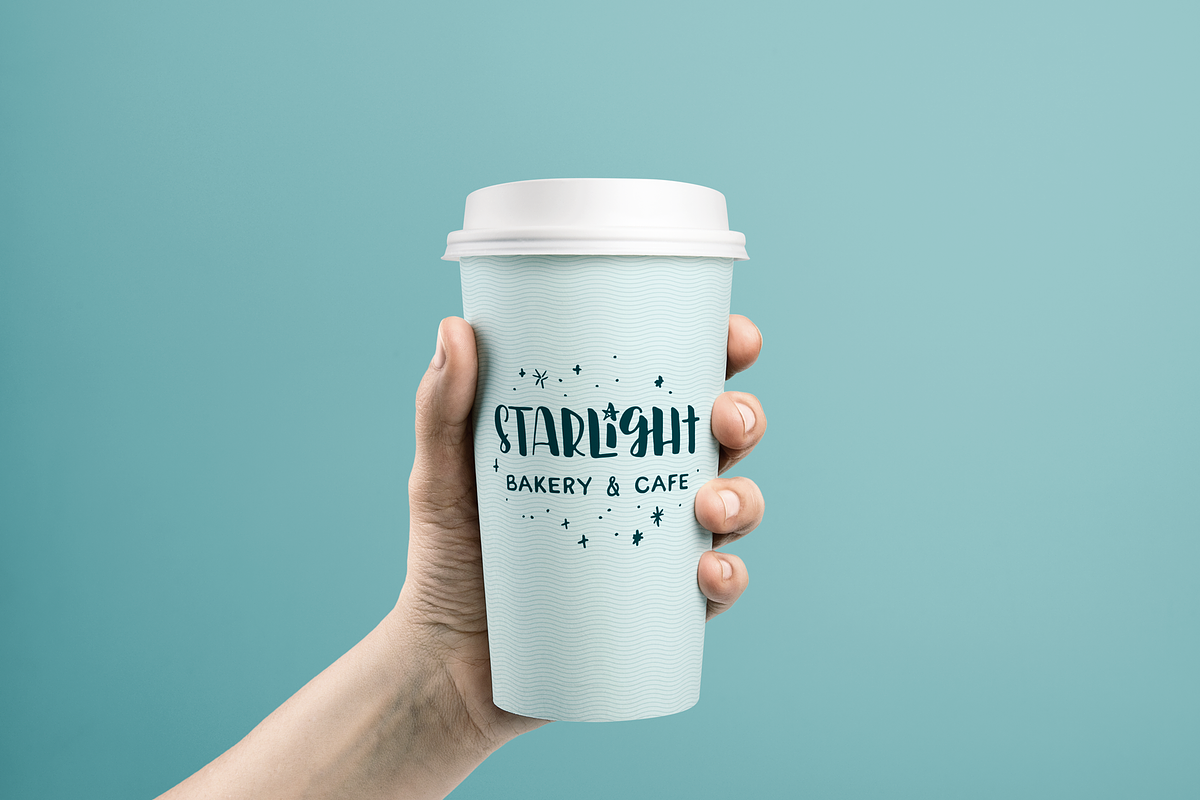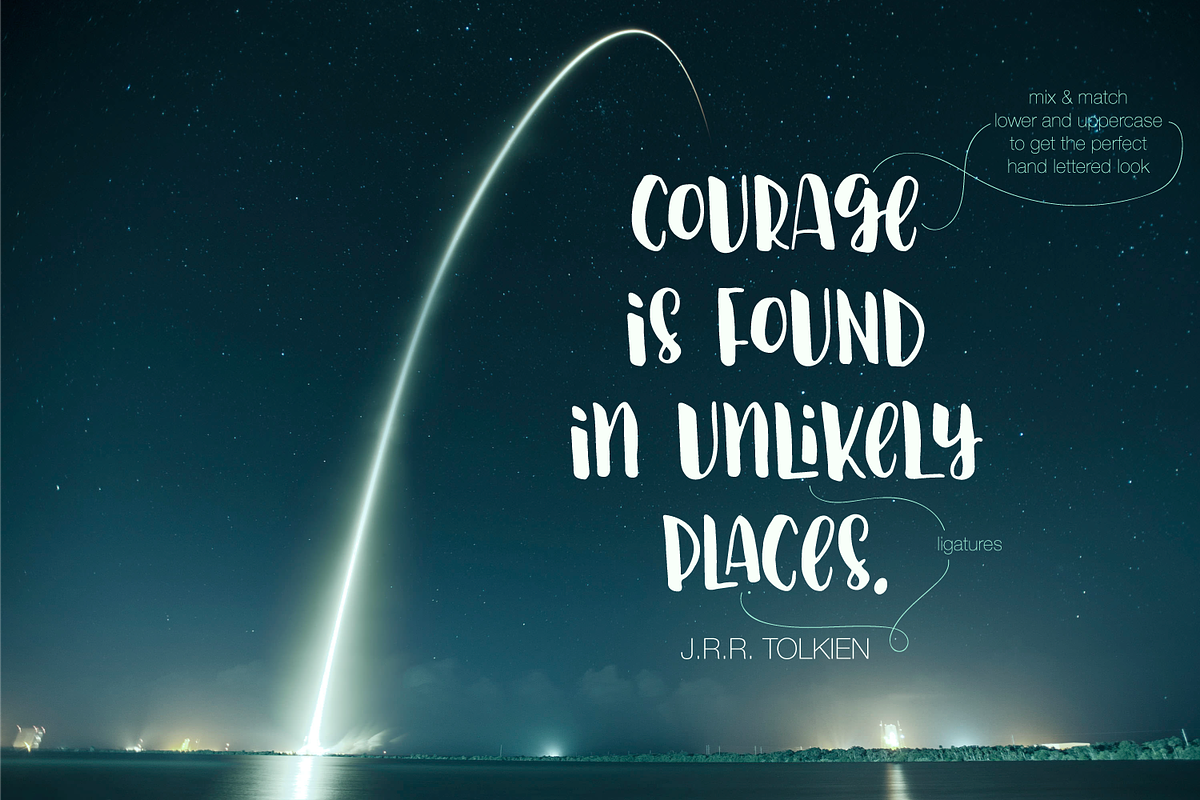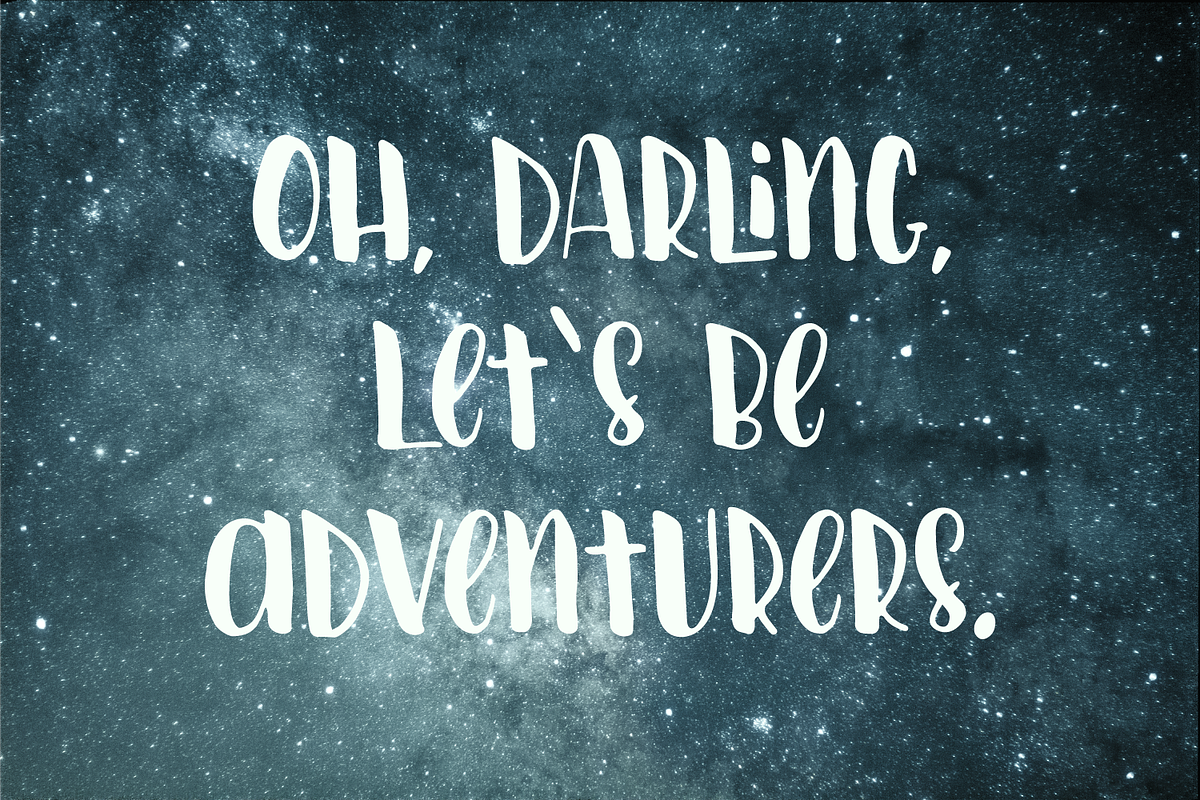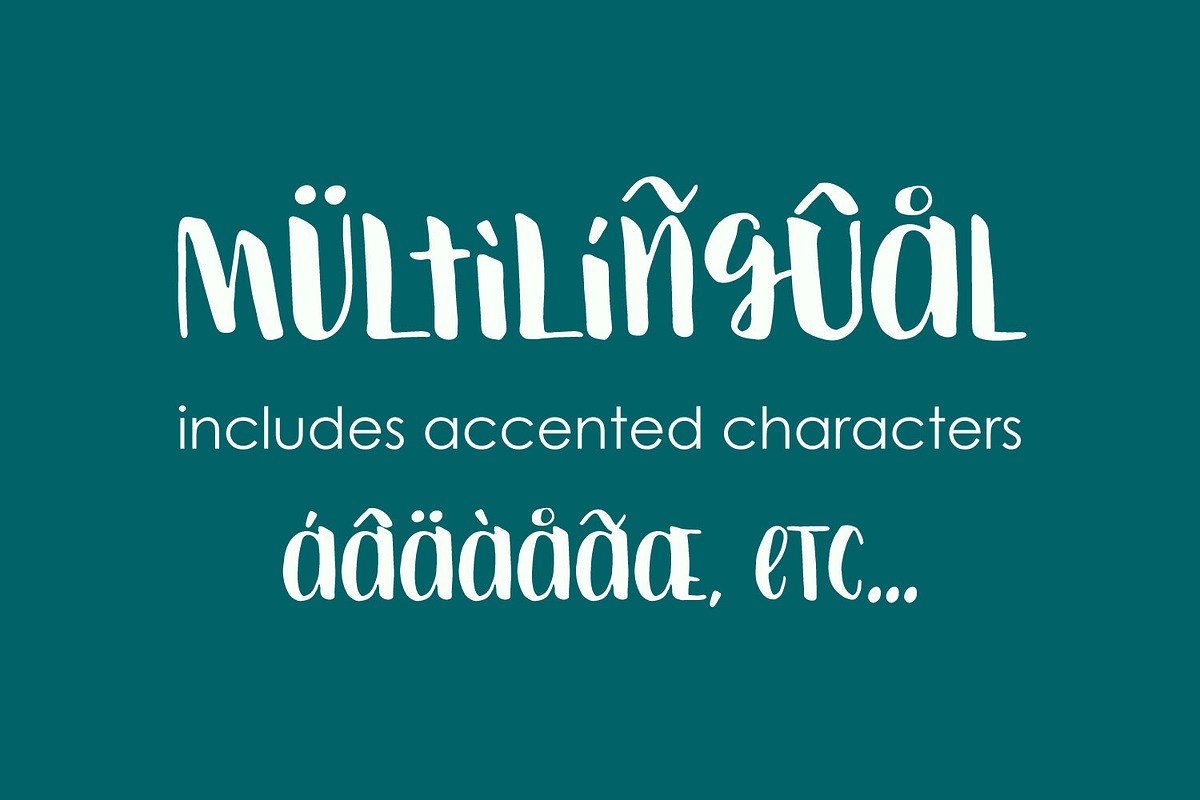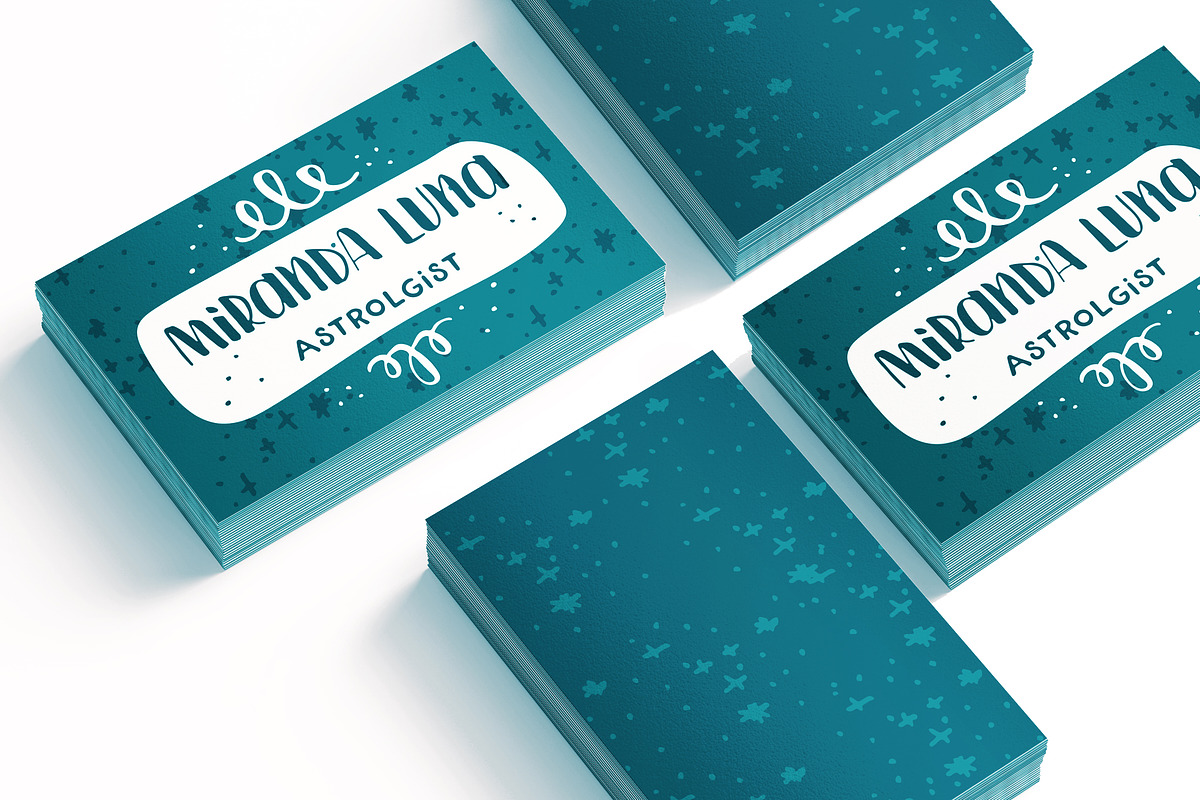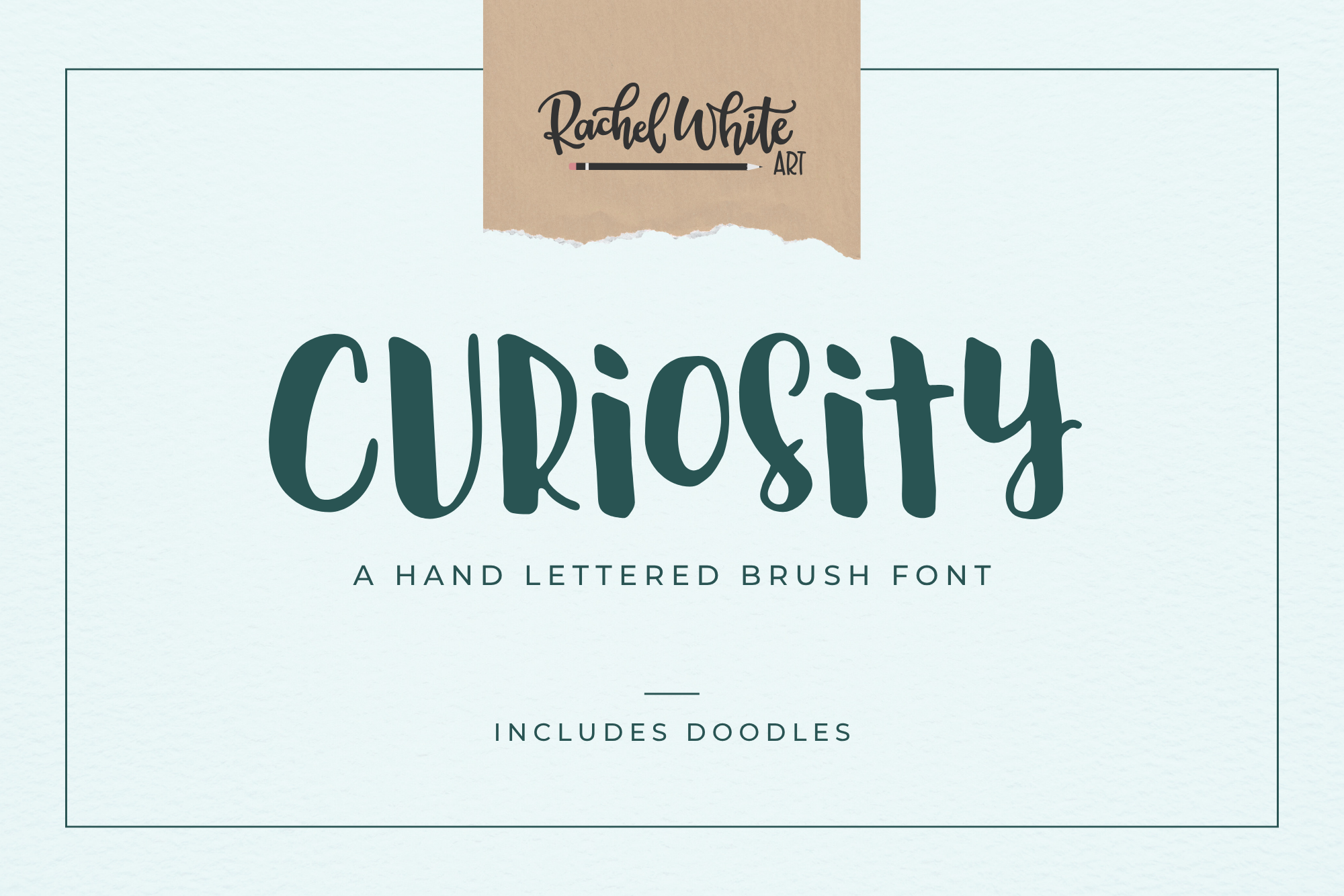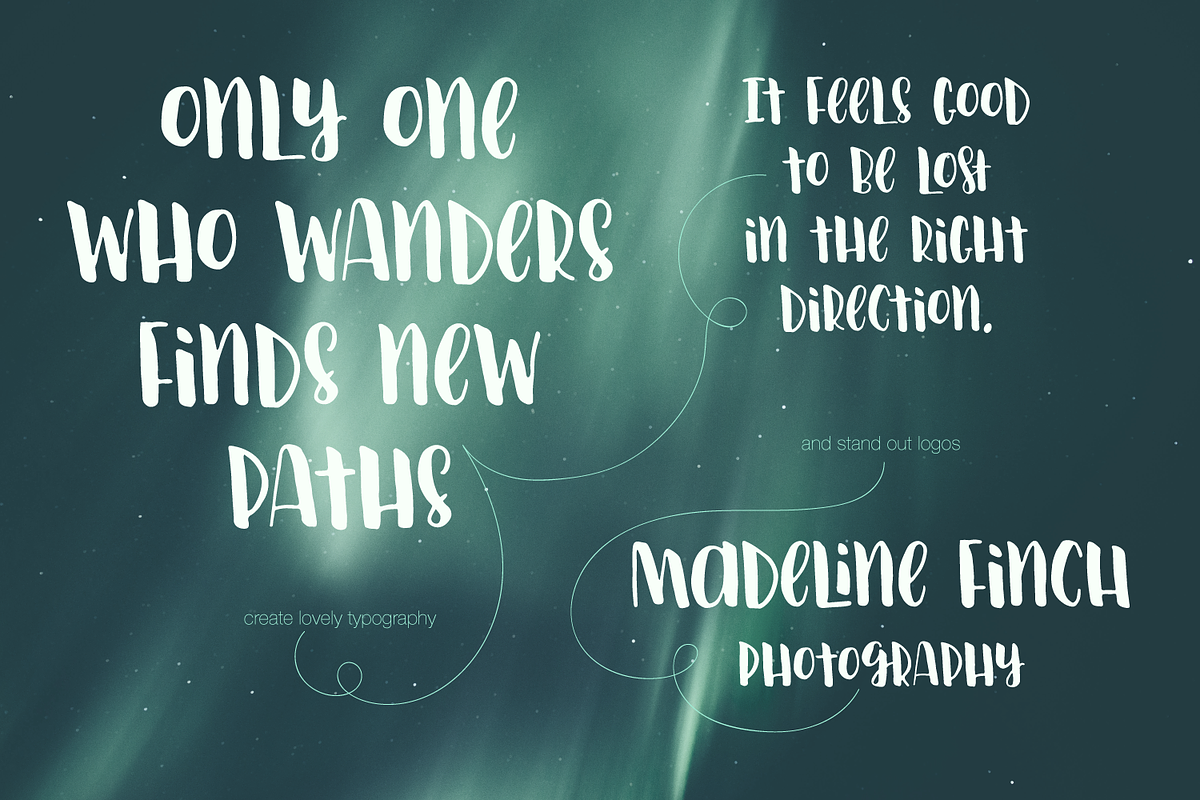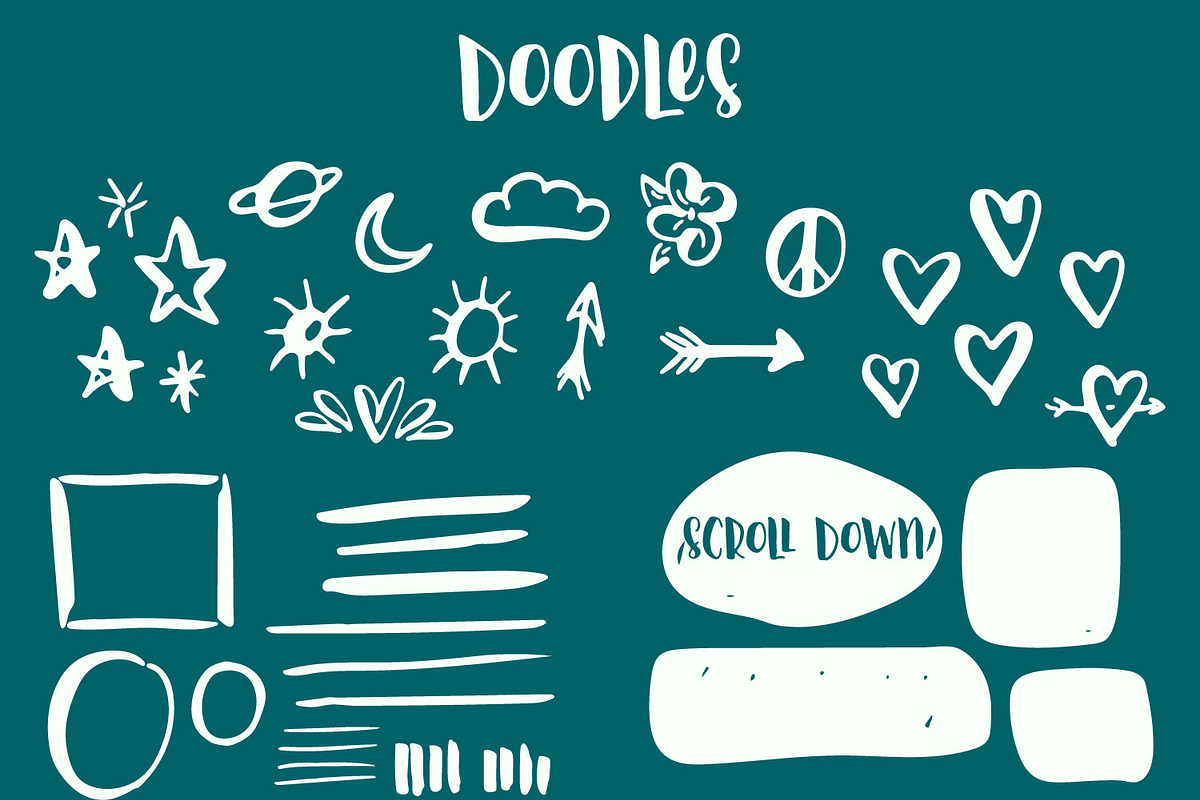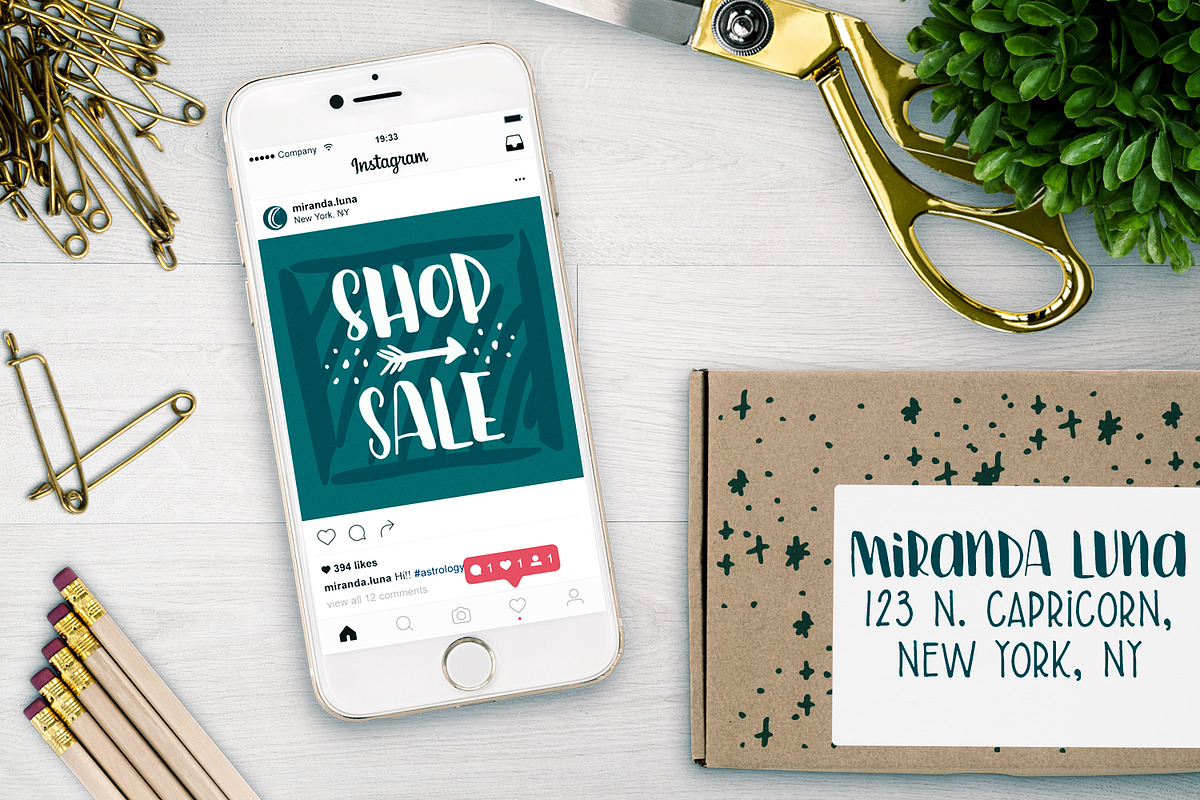
Curiosity, hand lettered brush font
Curiosity is a playful hand-lettered brush font full of bounce and charm. With its smooth brush strokes and friendly personality, it’s perfect for greeting cards, quotes, branding, packaging, and projects that need a touch of whimsy and warmth.
The slightly uneven lines give it a handcrafted, natural feel while staying clean and easy to read. Use Curiosity to bring a creative, cheerful energy to your designs.
Great for: Quotes, social media, packaging, branding, cards, planners, stickers